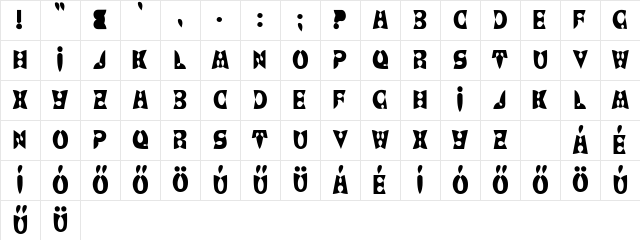
LoopDeLoop-HU Normal Free Font
LoopDeLoop-HU Normal
Design Context for LoopDeLoop-HU
LoopDeLoop-HU is a composed and adaptable typeface that performs quietly and consistently across a wide range of design contexts.